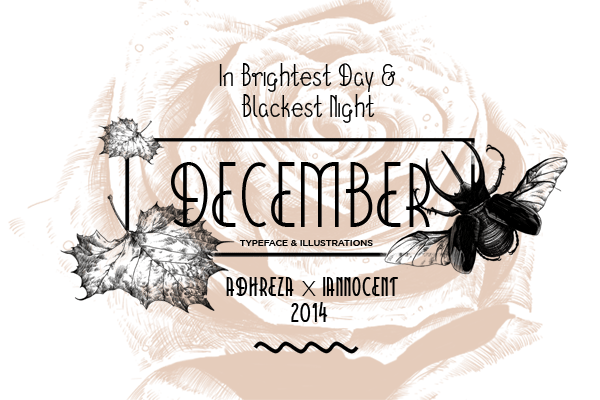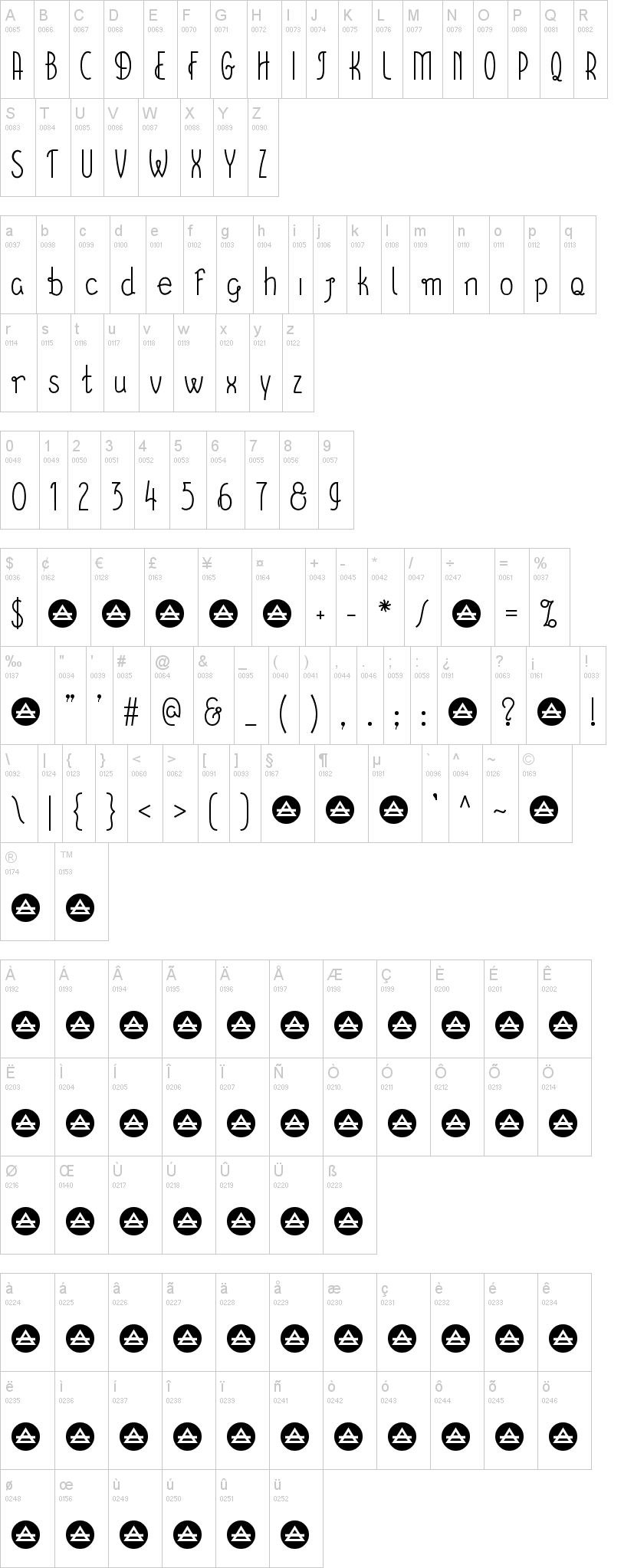
Note of the authorDecember Typeface is a combination of script and serif font for display and bodytext in a medium size. The typeface inspired by the end of this year and i tried to celebrate with my melancholic feels. A romantic and compassion come by as the progress continued and I collaborate with Iannocent to completed the package with illustrations that can use with photoshop document.